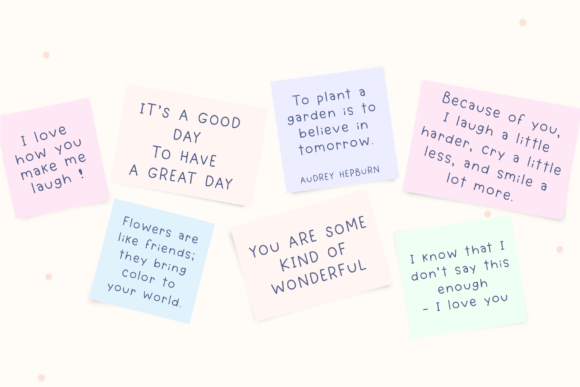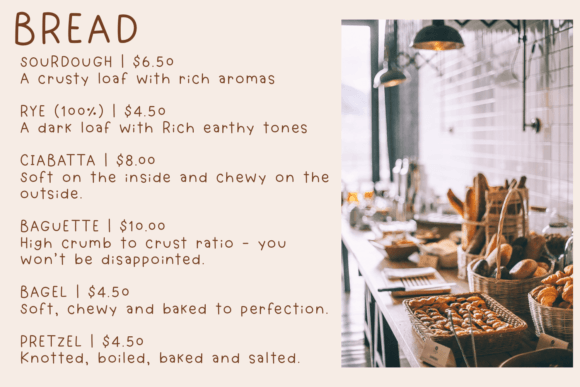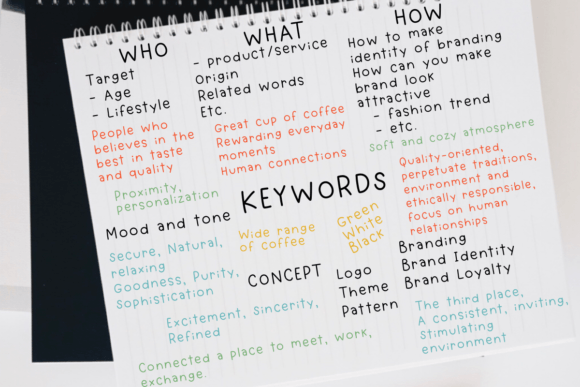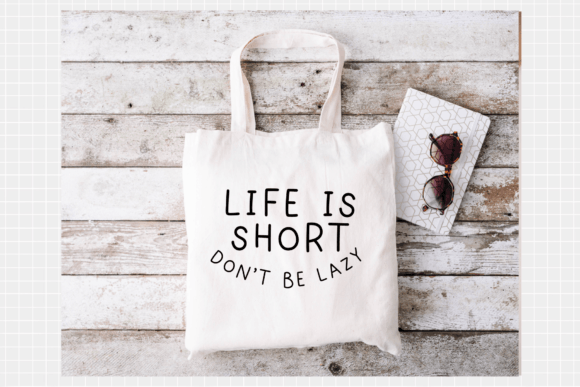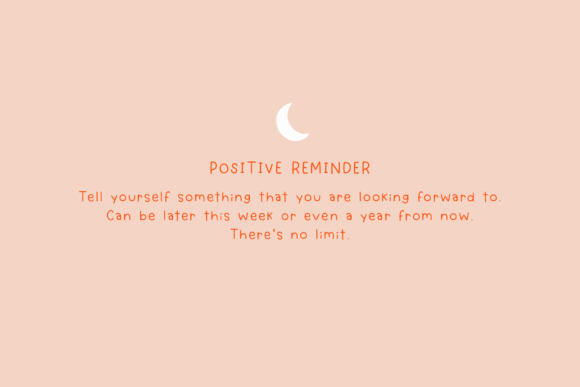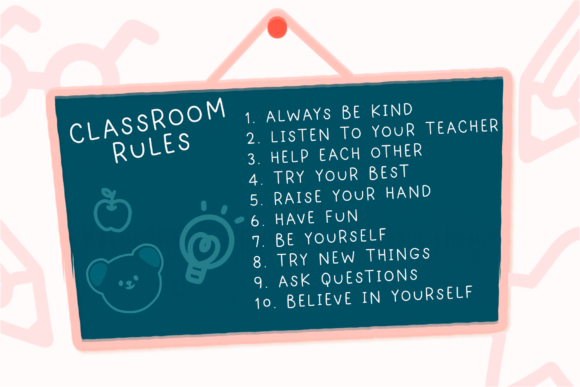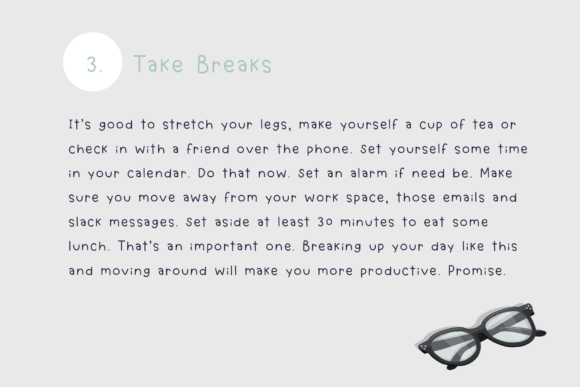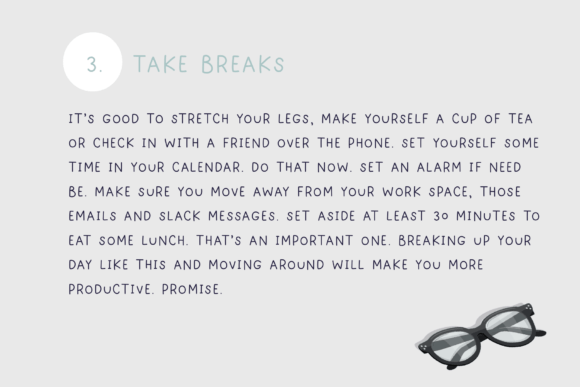
Notes and Books Font
About Notes and Books Font
Notes and Books is a charming and whimsical handwritten font that adds a touch of quirkiness and cuteness to a variety of projects. Its versatile nature makes it suitable for a wide range of creative endeavors, including blog posts, logos, branding, digital planners, invitations, digital bullet journals, greeting cards, planners, photo albums, decorations, and much more.
In the realm of blog posts and digital content, Notes and Books injects personality and playfulness, making your written material visually engaging and memorable. Its quirky charm lends itself well to creating a distinctive brand identity, making it a delightful choice for logos and branding materials.
For digital planners and bullet journals, this font offers a unique handwritten aesthetic that brings a sense of creativity and fun to organizational tools. Its playful nature can be utilized in invitations, greeting cards, and photo albums, infusing a touch of charm into special moments and occasions.
Whether you’re working on decorations or various other projects, Notes and Books adds a cute and lighthearted feel, making it versatile for a wide array of creative applications. The handwritten style of the font contributes to a warm and approachable vibe, creating a connection with your audience.
In conclusion, Notes and Books is more than just a font; it’s a whimsical tool that enhances the charm and character of your projects. Its versatility and cute handwritten style make it a valuable asset for bloggers, designers, and anyone looking to infuse a bit of playfulness into their creative endeavors.